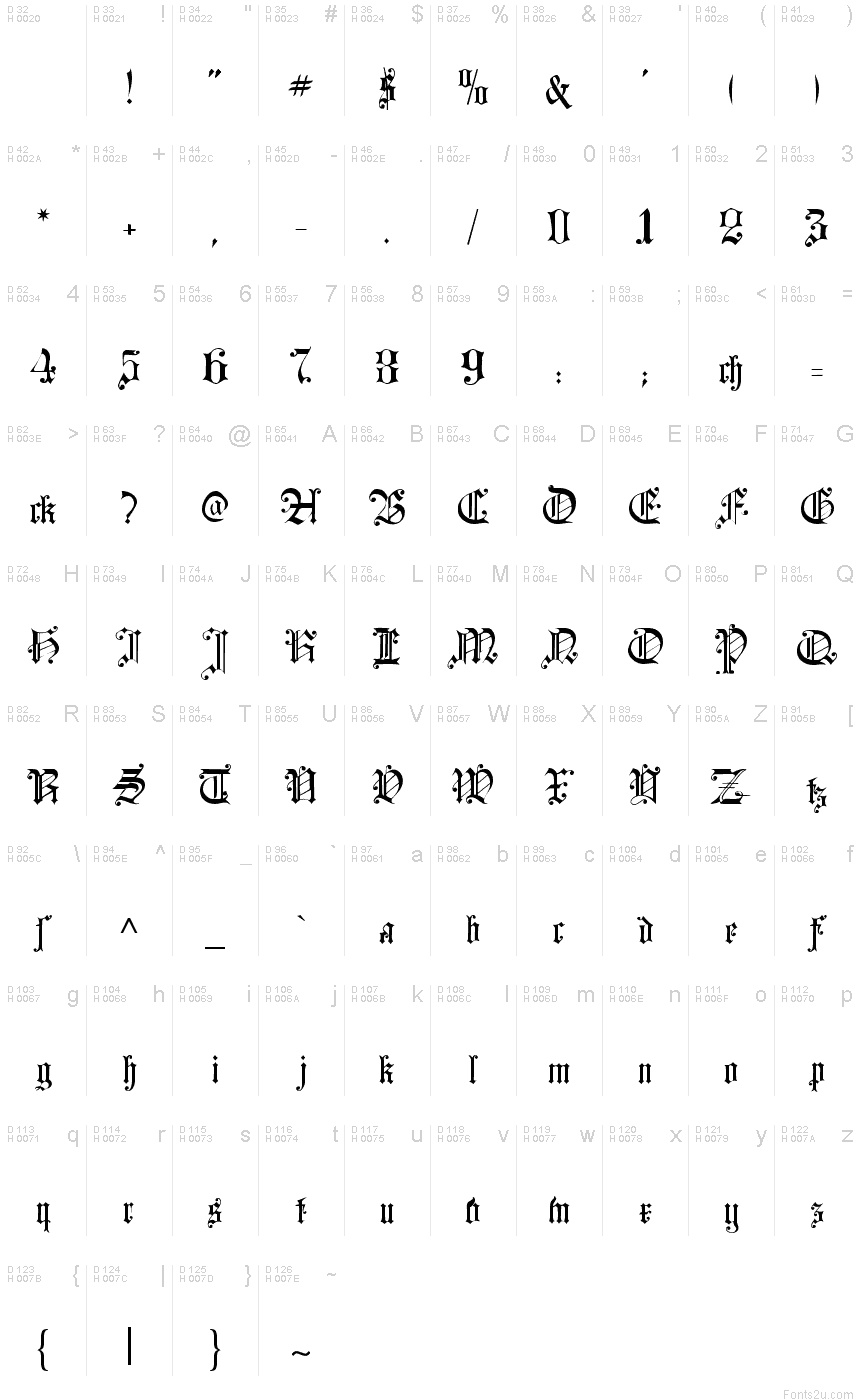
Courtrai
Courtrai, designed by Dieter Steffmann of Typographer Mediengestaltung, is a free medieval blackletter font with a stern, ceremonial silhouette, tall, tightly fitted lowercase forms, and pronounced thick-to-thin strokes. Sharp points and compact spacing keep the texture dark and continuous.
Historical publishing can draw on its manuscript associations for book covers and chapter titles, yet the same dense, angular forms bring a suitably severe edge to metal music merchandise and theatrical posters. Brewery packaging is another convincing setting, as the pointed details, diamond-shaped tips, and formal weight link old-world craft, dramatic performance, and darker entertainment imagery through a shared Gothic vocabulary.